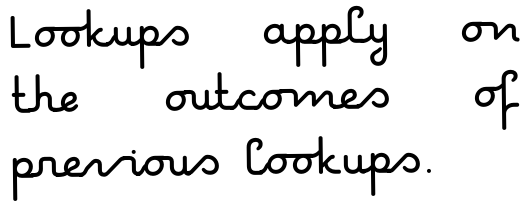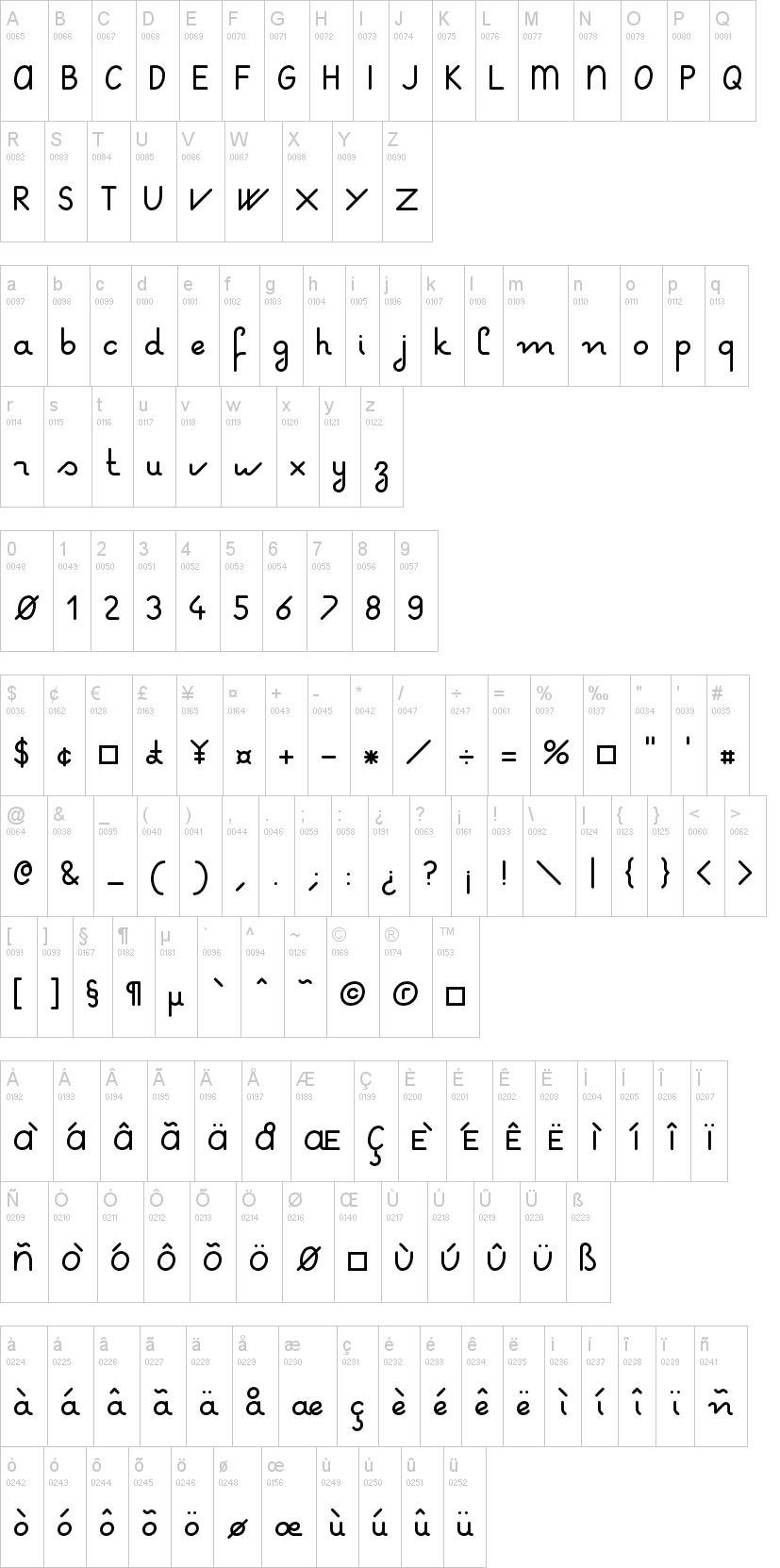
Note of the authorThe purpose of this font is to serve as support to the web page http://pecita.net/otfpoc/
This page explains (in French & in English) the use of contextual alternates within a Latin typeface with glyphs connected.